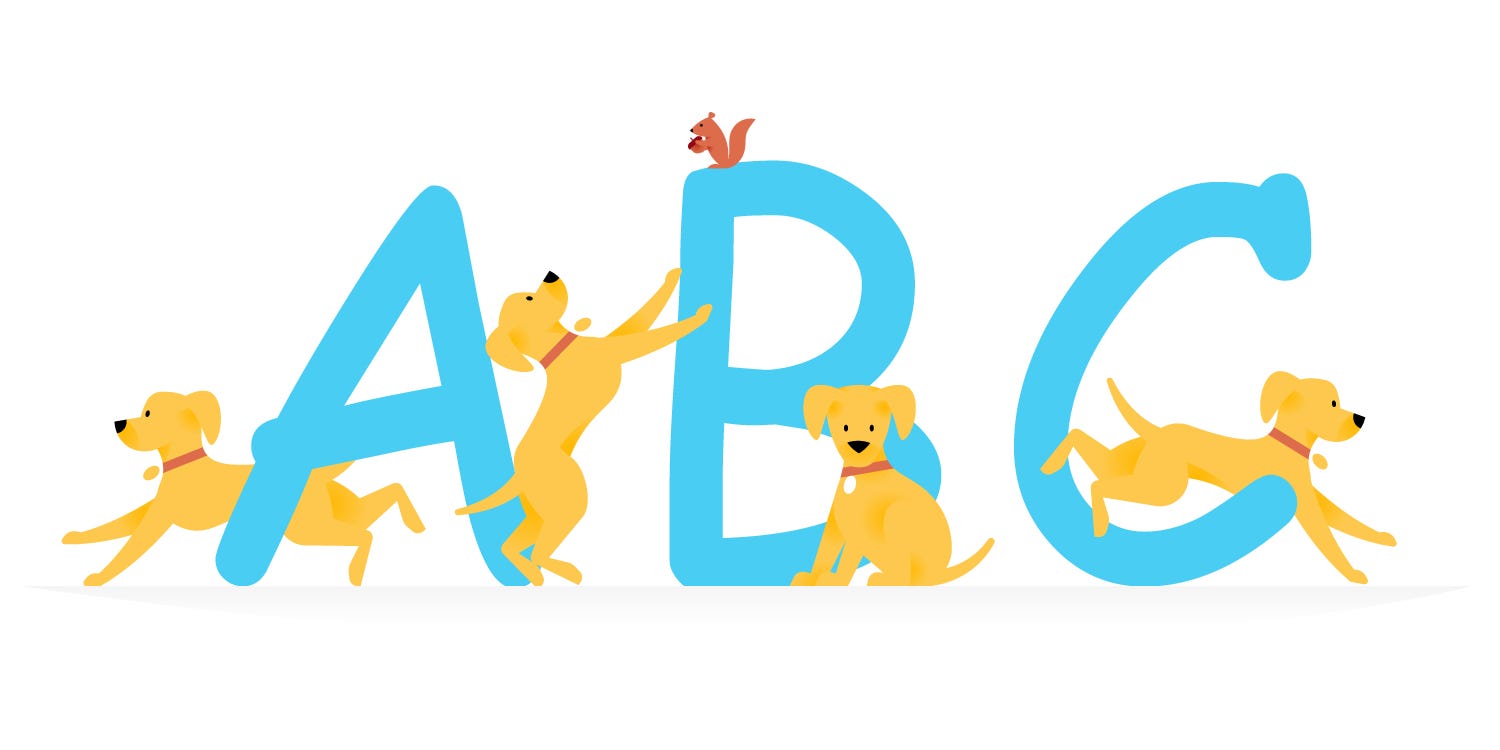
Everything you type should be in Comic Sans font today and this is why
Click to find the best 98 free fonts in the comic sans serif style. Web comic sans 4 font family styles medium style truetype 128 glyphs 130 characters alternates medium style. Web download the comic sans ms free font. You can download free fonts like this by just clicking on a button which is given below. Web comic neue is.
Comic Sans Font Dafont Free
Browse by alphabetical listing, by style, by author or by popularity. Web comic sans ms version history. You can download free fonts like this by just clicking on a button which is given below. Web comic sans 4 font family styles medium style truetype 128 glyphs 130 characters alternates medium style. Comic sans is arguably the best font ever!
Font Alphabet Styles Comic Sans MS
Looking for comic sans serif fonts? Web comic sans 4 font family styles medium style truetype 128 glyphs 130 characters alternates medium style. Detailed information on the comic sans ms font: Web comic neue is an original reinterpretation of the classic, comic sans. Web we have 140 free comic, sans fonts to offer for direct downloading · 1001 fonts is.
Why We Love to Hate Comic Sans. 25 years on, a story of redemption by
Web comic sans 4 font family styles medium style truetype 128 glyphs 130 characters alternates medium style. Web discover the perfect font for any project with our free comic sans fonts. It was designed by vincent connare in 1994, and is included with. Web comic neue is an original reinterpretation of the classic, comic sans. Web open sans is a.